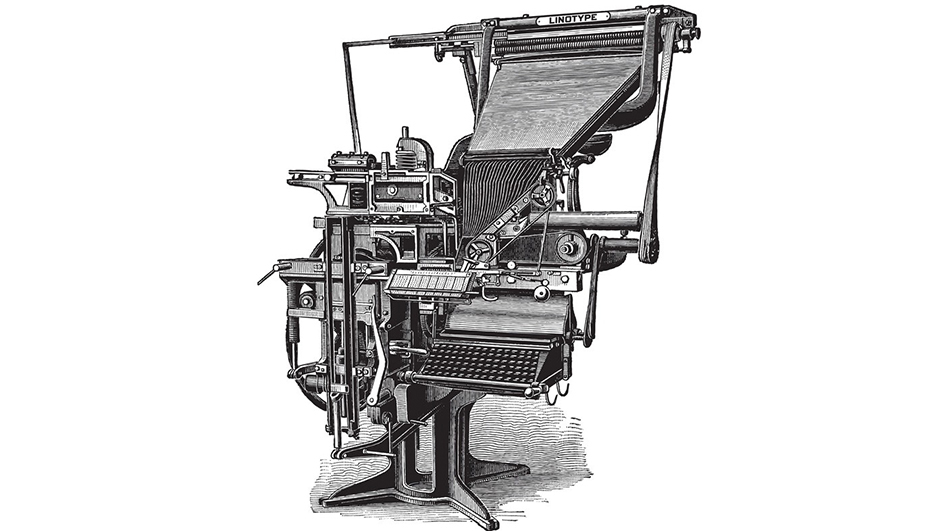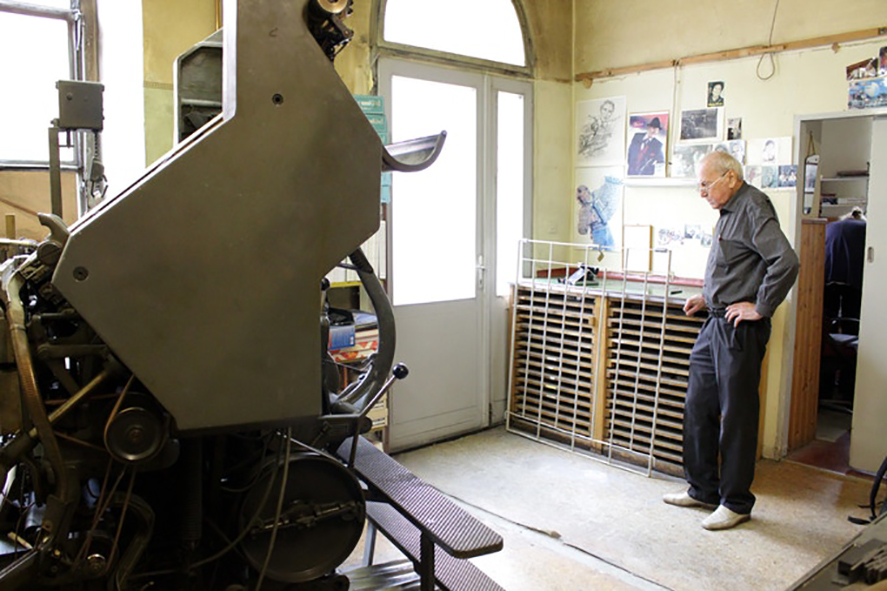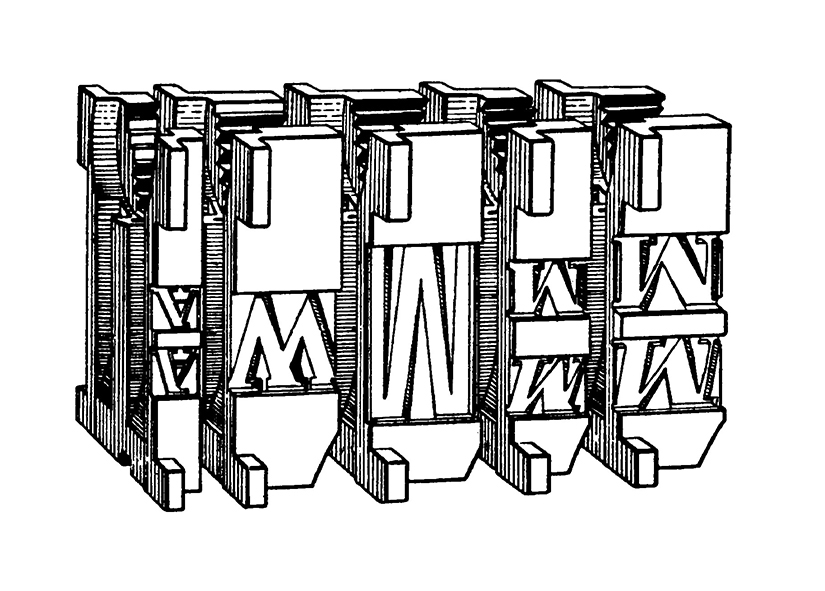
Very honestly, even after some successfully completed impossible missions, saving this giant Linotype machine is not at all a piece of creamy cake. Especially because the mission is NOT to just save it from scrap and bring it into a museum or showroom. NO, the essentially important part of our adventure is to RELOCATE this unique and super rare piece of technology to our new workshop and RESTART it with next generation operators. Developing a whole portfolio of new products which would be impossible to produce without it" notes Florian "Doc" Kaps from Vienna, Austria, of the Kickstarter project to crowdfund ASAP.
A man who since his early childhood specialized in "running towards the opposite direction", Doc reacted by founding The Impossible Project in 2008. Rescuing the last Polaroid factory in the Netherlands and bringing back iconic Polaroid photographs to the world.
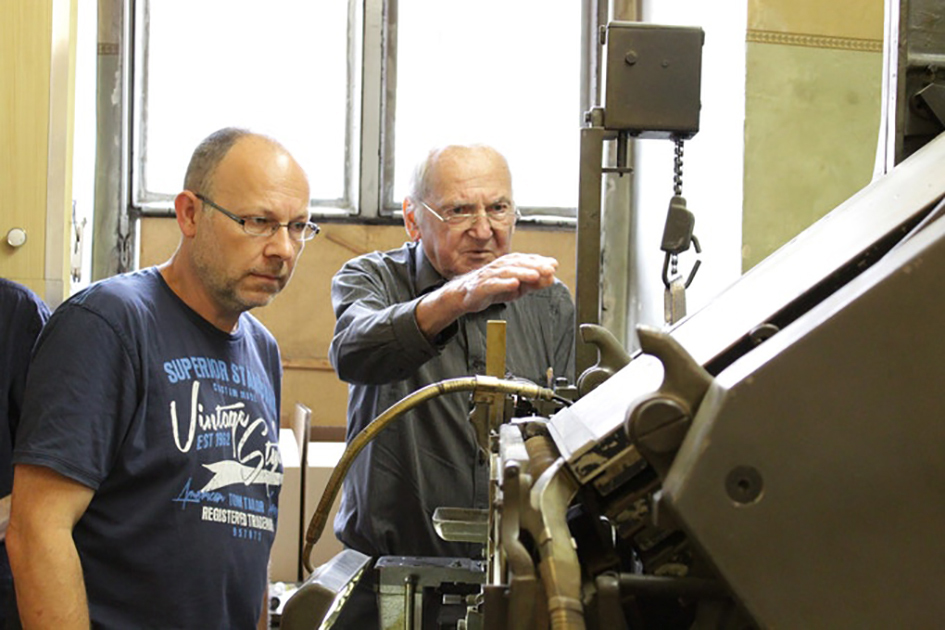
"TODAY, the iconic Linotype is the ULTIMATE MACHINE to produce and print text in an all analog way."
Since the opening of his new dream company Supersense in 2014, Doc enlarged his mission of preventing the demise of carefully selected analog technologies by re-connecting them with the potential of new customers and products and globally building new awareness and markets. Together with a team of analog believers, lovers, mavericks, souls, crafters and the Kickstarter supporters, Doc is ready to save a Linotype from oblivion.
Together with Willy Kolleger and several professional partners Doc developed a "clever masterplan to protect and caress every single part and detail so as the beautiful old lady will not at all be offended"
"We do believe that exactly this all analog way enables us to manufacture one-of-a-kind products, with a very special feel that we love to describe as 'magic'".
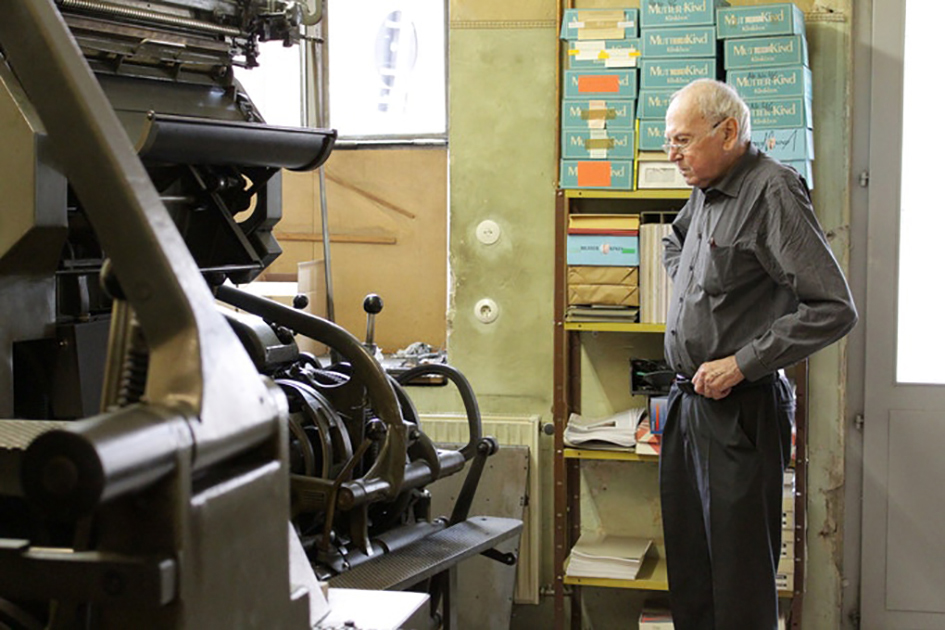
"Linotype was the first letter-assembling machine in history that made it possible to print text without the complicated and time-consuming process of arranging each and every word by hand. TODAY, the iconic Linotype is the ULTIMATE MACHINE to produce and print text in an all analog way. We do believe that exactly this all analog way enables us to manufacture one-of-a-kind products, with a very special feel that we love to describe as 'magic'. Not everybody can feel this yet, but more and more people all around the world re-discover this aspect in our increasingly digital world. Therefore we started to develop a whole series of magic products that can only be produced by using the wonderful Linotyope machine of Mr. Kolleger" notes Doc.
All about Linotype
"Thomas Edison called the Linotype machine the "Eighth Wonder of the World". Developed by the US American inventor Ottmar Mergenthaler in 1884, the Linotype revolutionized typesetting, especially newspaper publishing - making it possible for a relatively small number of operators to set type for many pages on a daily basis.
Before the Linotype, daily newspapers were limited to eight pages.
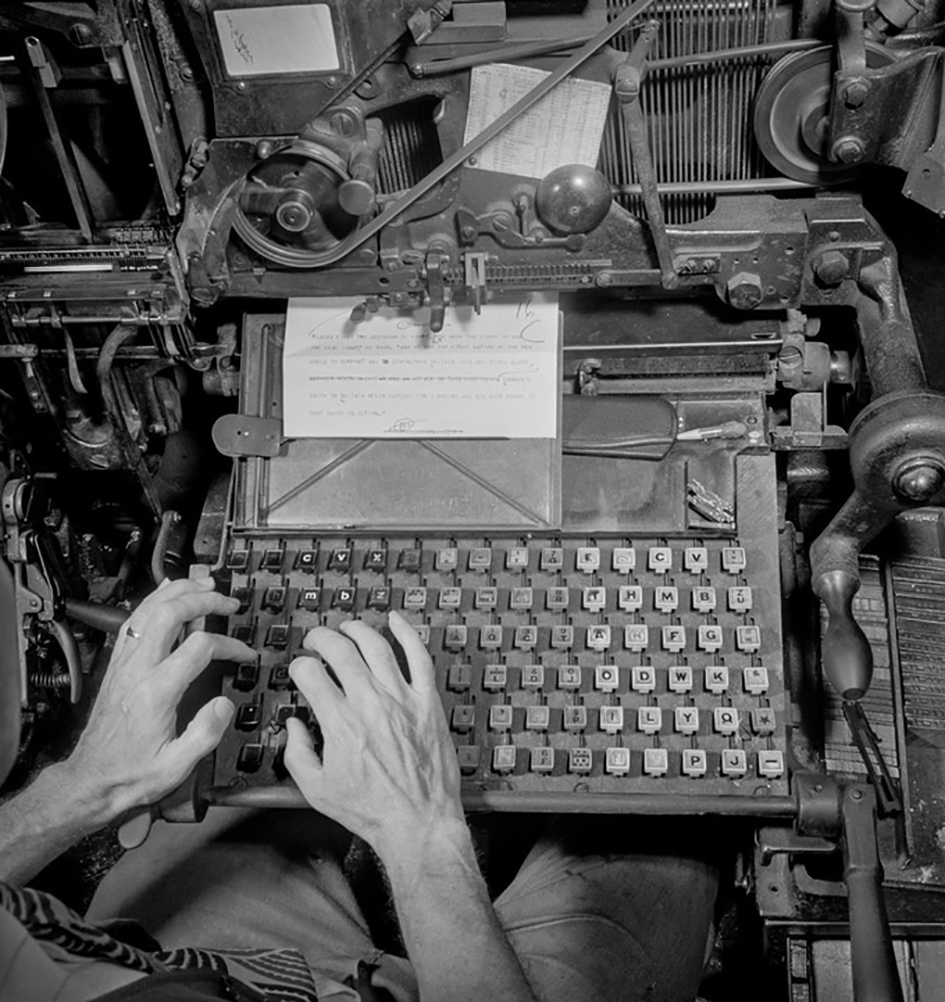
The name of the machine comes from the fact that it produces an entire line of metal type at once - a "line-o'-type". This was a significant improvement over the previous industry standard, i.e., manual, letter-by-letter typesetting using a composing stick and drawers of letters.
"Before the Linotype, daily newspapers were limited to eight pages."
The machine assembles matrices, which are molds for the letter forms, in a line. The assembled line is then cast as a single piece, called a slug, of type metal in a process known as hot metal typesetting. The matrices are then returned to the type magazine from which they came, to be reused later.
This allows much faster typesetting and composition than original assembling by hand in which operators place down one pre-cast glyph (metal letter, punctuation mark or space) at a time.
Although these machines were revolutionary, technology began to supersede the Linotype and they were scrapped and melted-down by the thousands. Today, very few machines are still in existence.
The highly-skilled operators of the Linotype struggle against time - if their skills are not passed along to a new generation of operators, the machine will die completely" notes Doc.